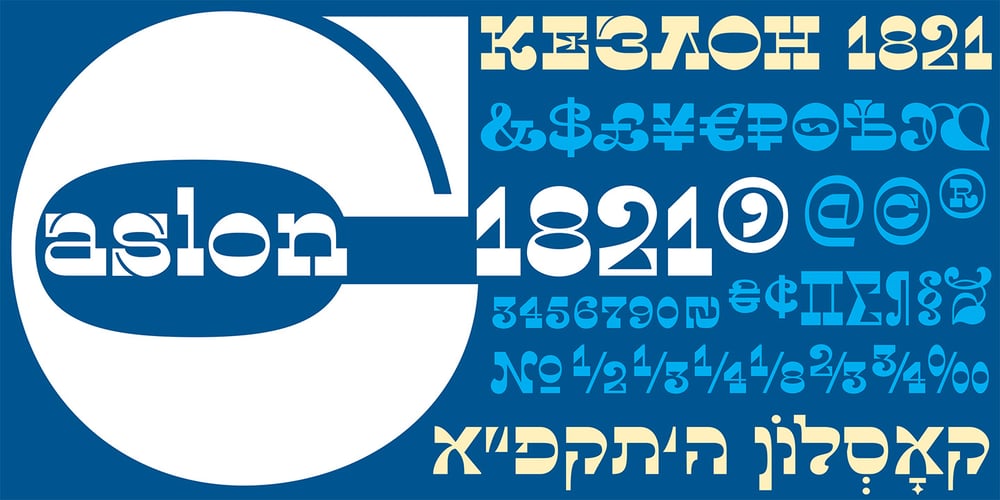
Caslon1821 Font Family was designed by Viktor Kharyk, Konstantin Golovchenko and published by Apostrof. Caslon1821 contains 1 styles and family package options. Caslon1821 is a revived “Italian” typeface of foundry Caslon & Livermore, 1821. The typeface quickly extended across Europe and America. It came to Russia and became very popular from France in the 30s of the XIX century. It’s Cyrillic versions were offered by typefoundries of Revillion and Co., Pluchard, Semen, etc. In our version we also added support for Hebrew (with vowels).